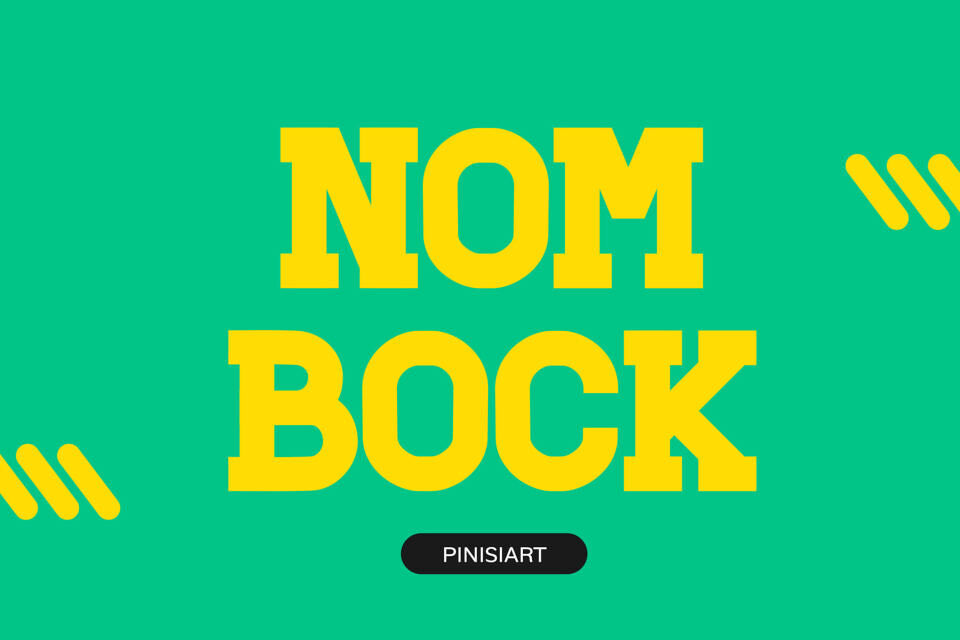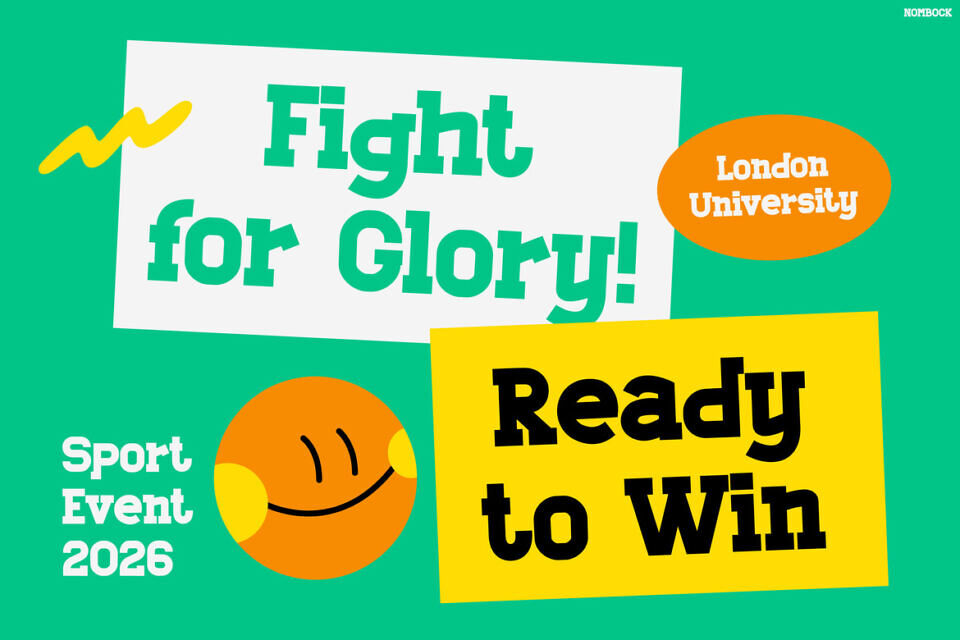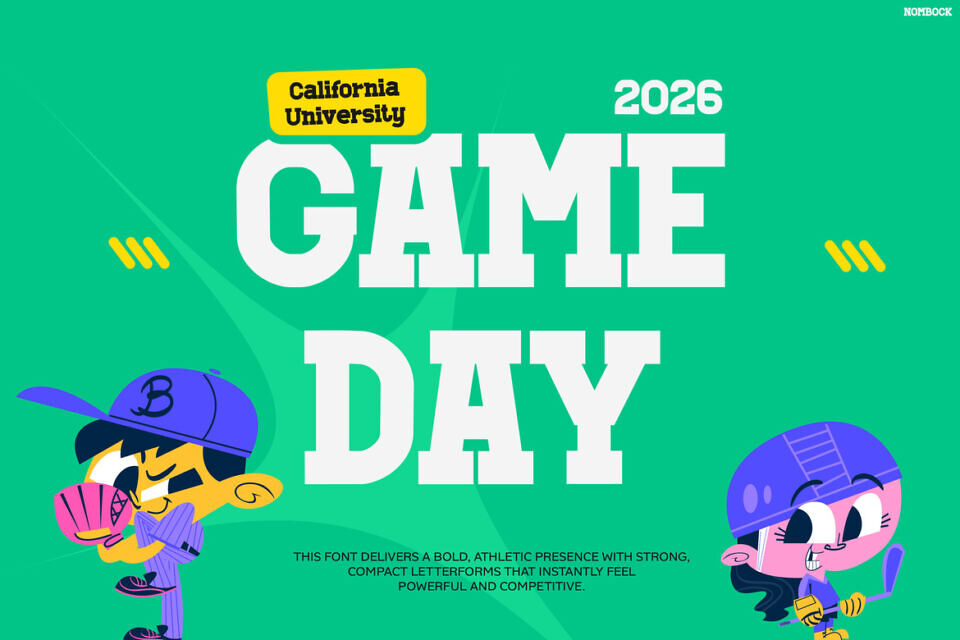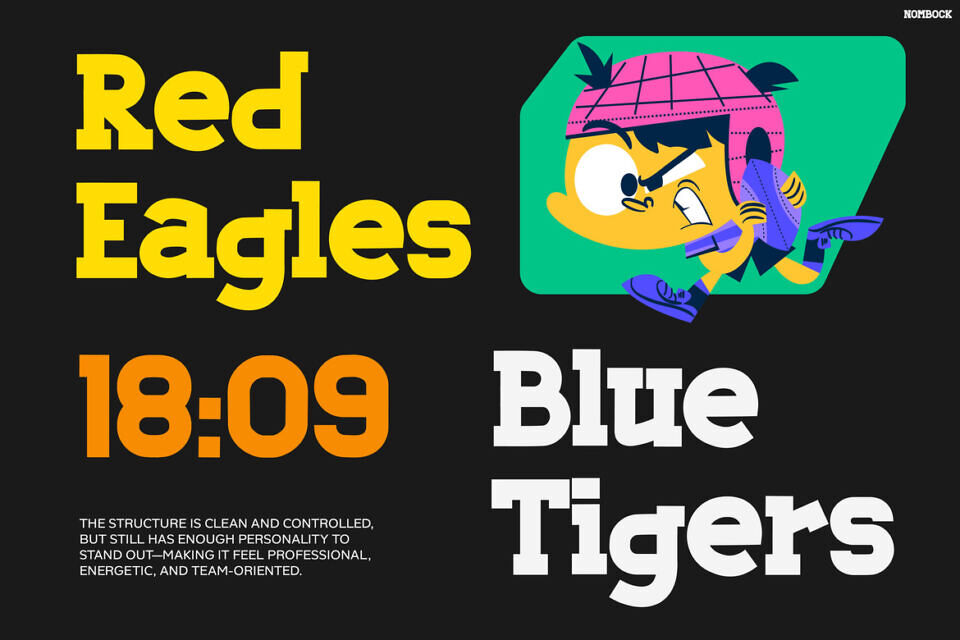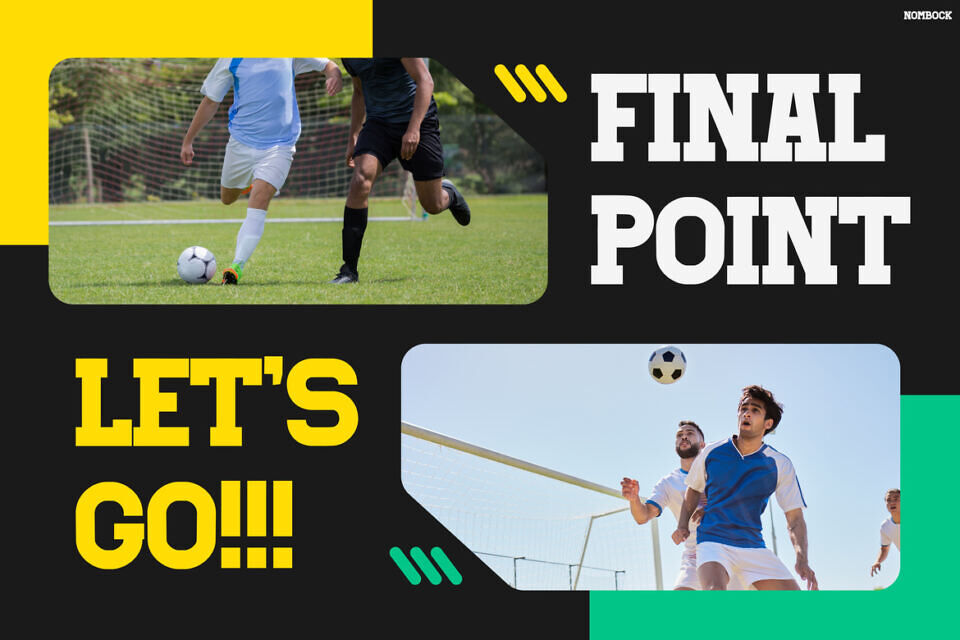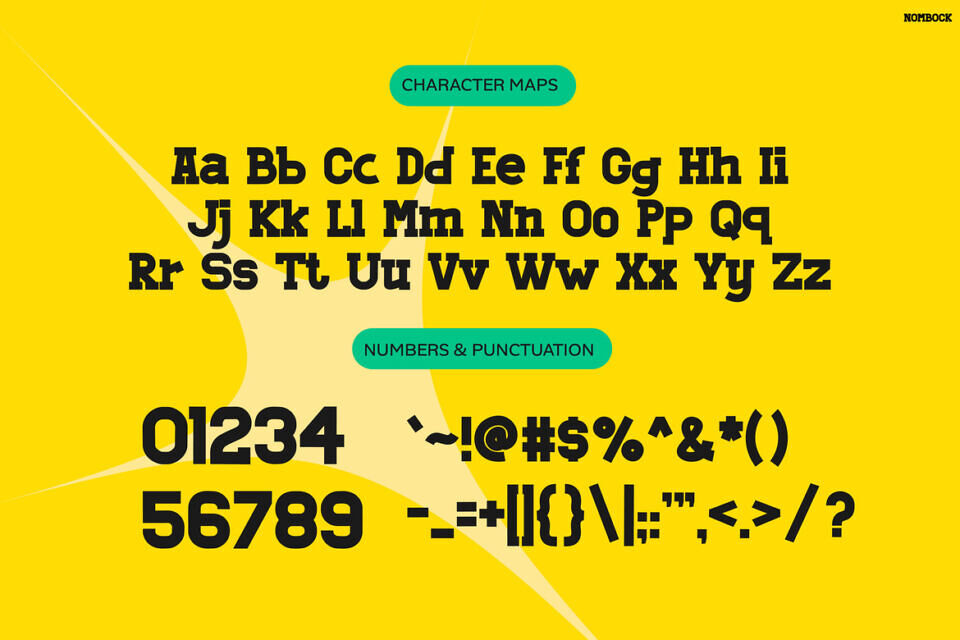
NOMBOCK is a Sport Font that brings energy and strength straight into your designs. Moreover, its sharp edges and solid shapes create a powerful visual impact. At the same time, the sporty style feels modern, clean, and highly versatile. Because of this, your text stays clear and easy to read in any layout. As a result, your headlines instantly stand out and grab attention.
NOMBOCK adapts well to both large headlines and medium-sized text. This flexibility allows you to maintain a consistent visual identity across multiple platforms. Meanwhile, its sporty character adds energy and movement to your designs. Therefore, you can create visuals that feel alive, dynamic, and full of impact.